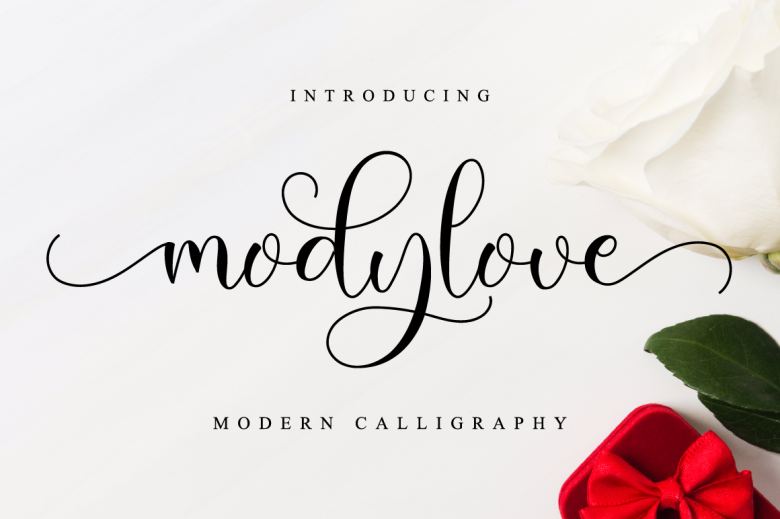
Modylove Font
This is a calligraphic typeface, created to look as close to a natural handwritten script as possible. This versatile script font has a wide spectrum of applications ranging from greeting cards to headlines and is guaranteed to add a romantic feel to your next project. This font is PUA encoded which means you can access all of the beautiful glyphs and swashes with ease!